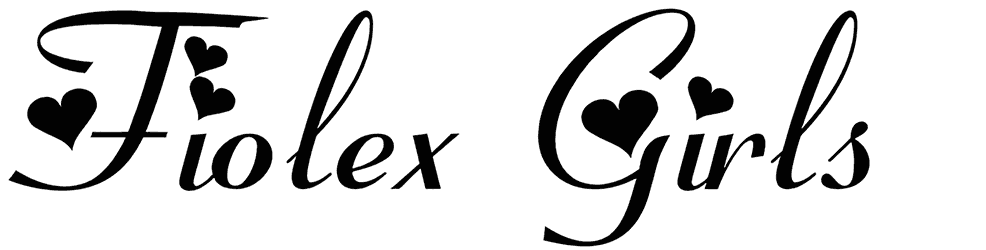
Fiolex Girls Font
If you are in the mood for adding a romantic touch to your graphic content, we offer you to utilize a holiday font such as Fiolex Girls to achieve your goal and impact the audience with its lovely, delicate design. Carrying a sense of softness, precision, and kindness would be a true description for this Valentine font.
If you want your artwork such as posters, gift cards, greeting cards, menus, and product packaging spark alongside their counterparts, never overlook it.